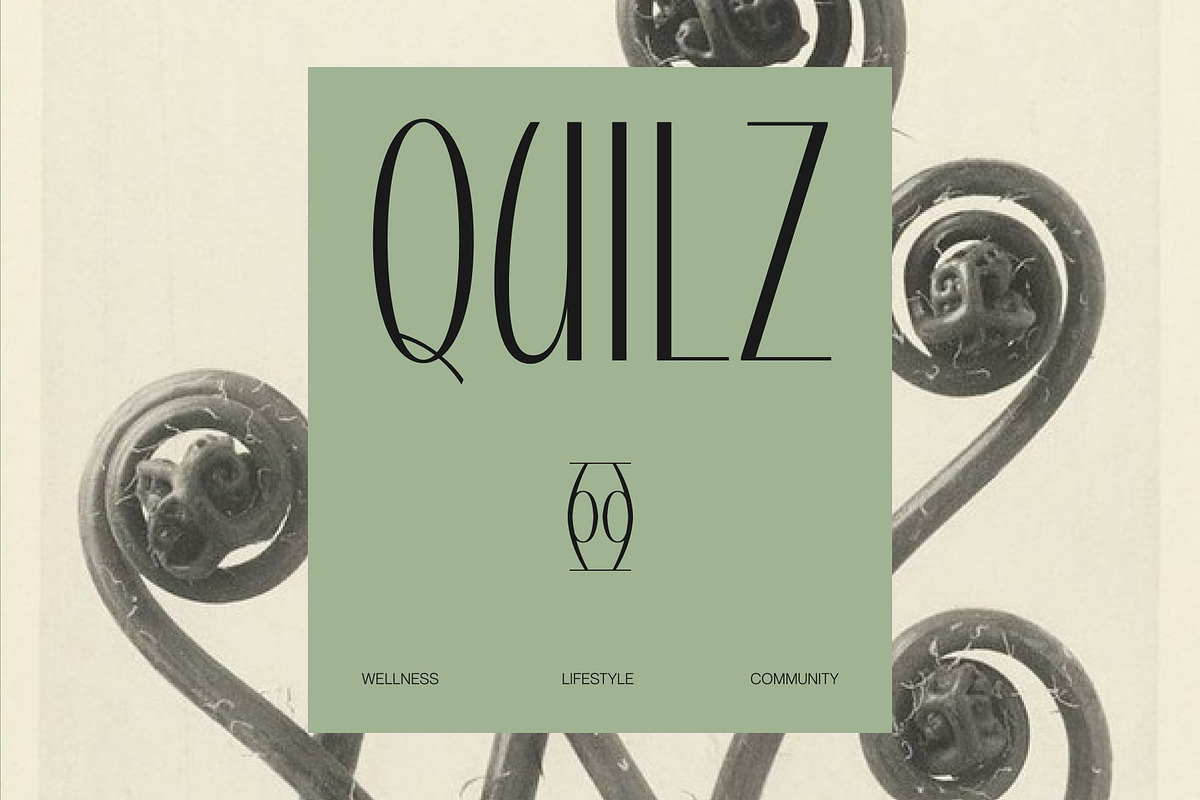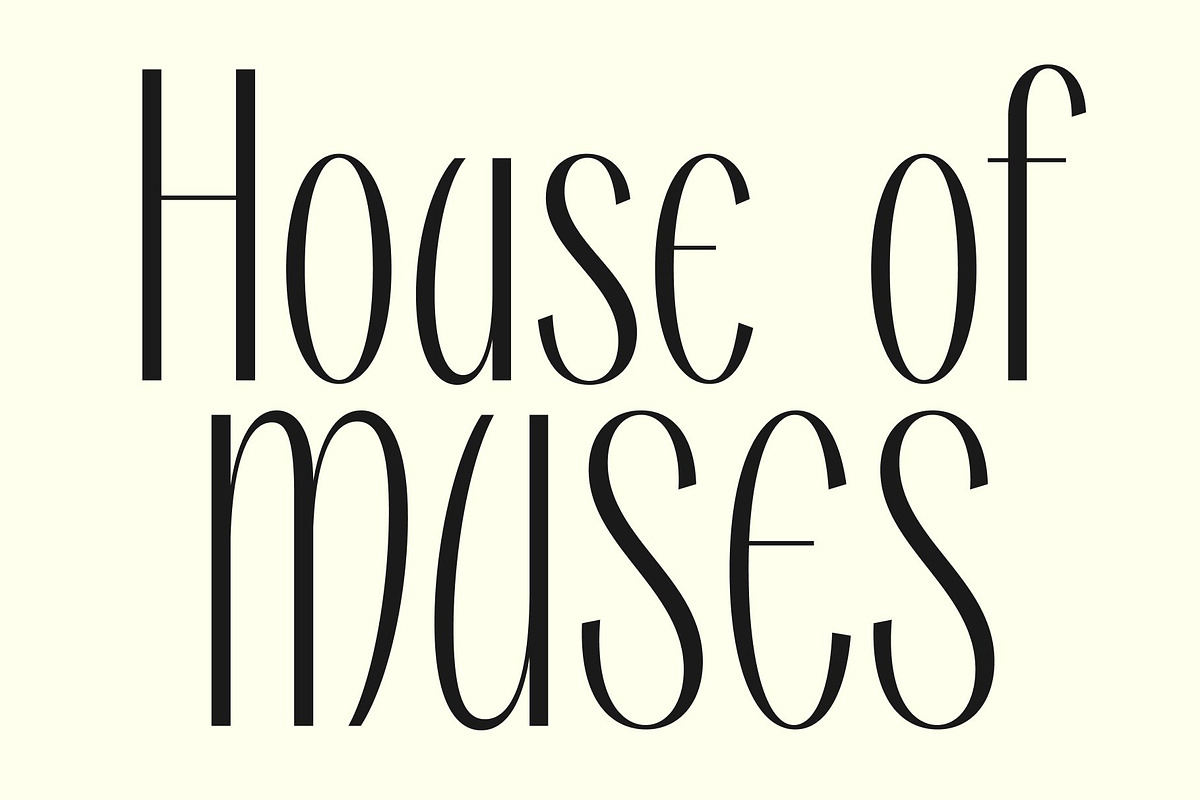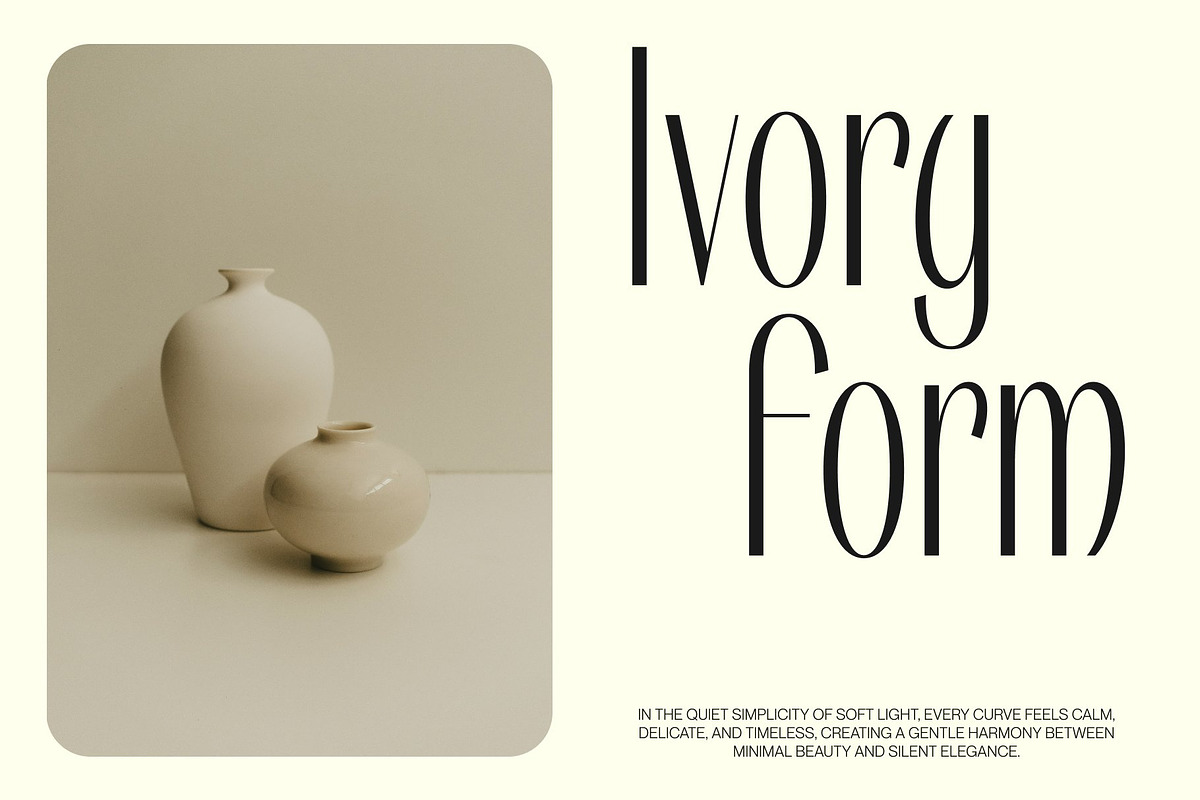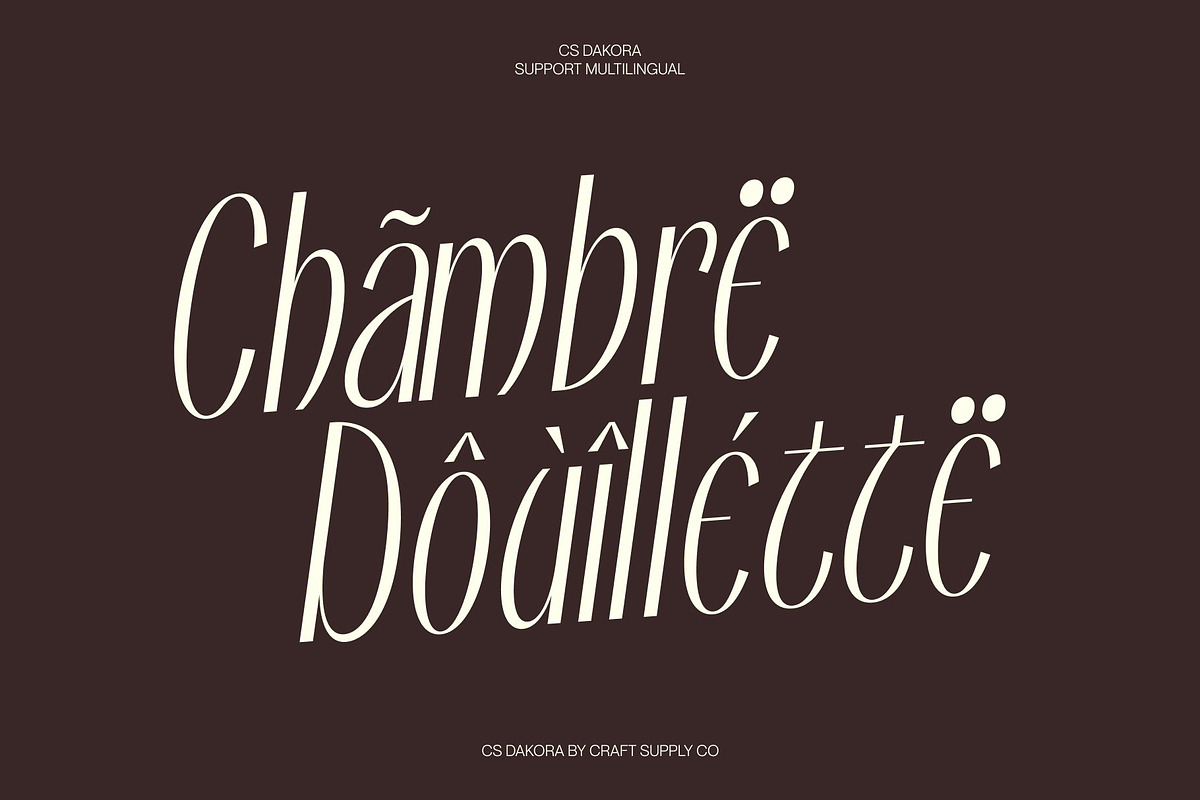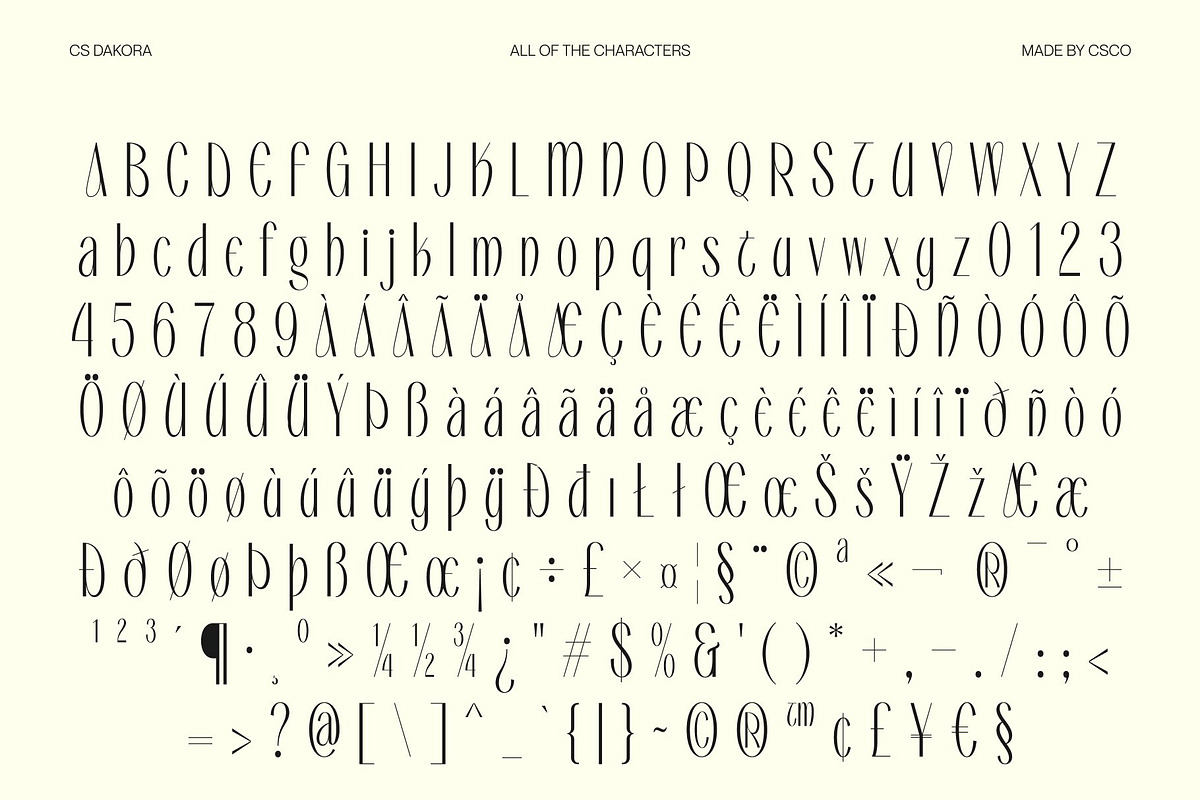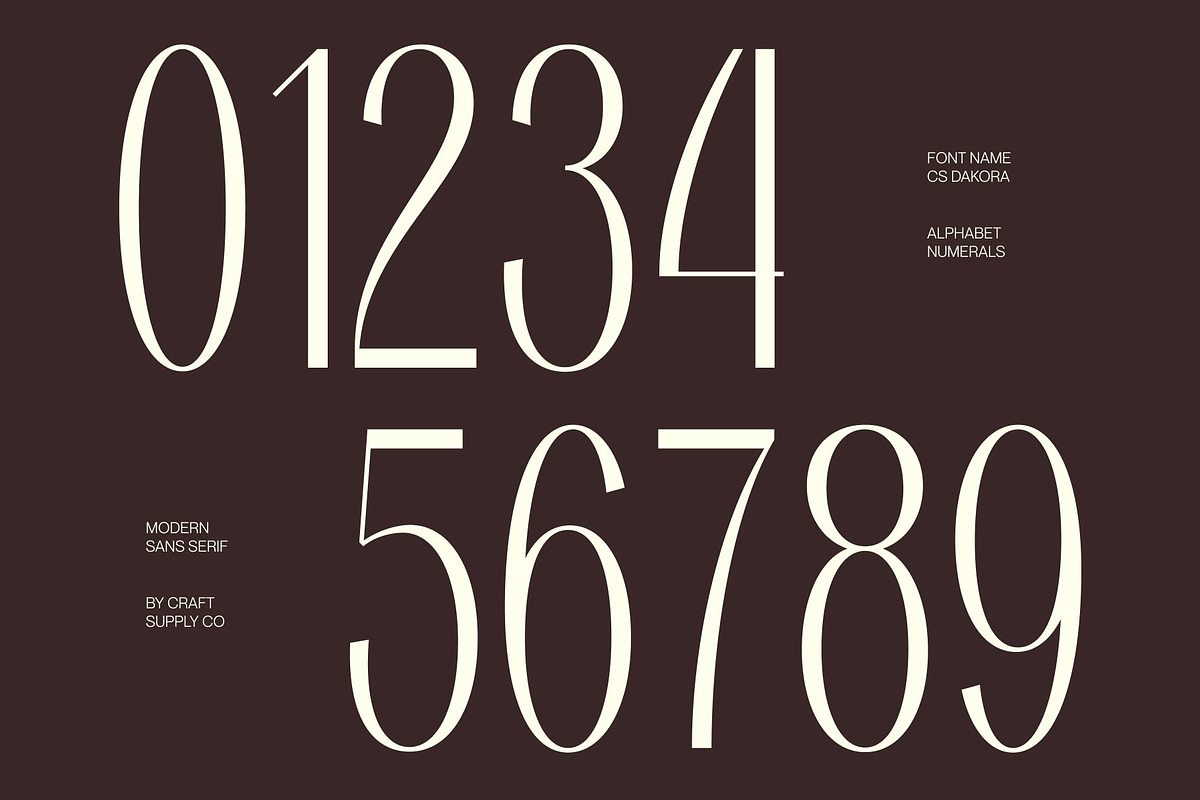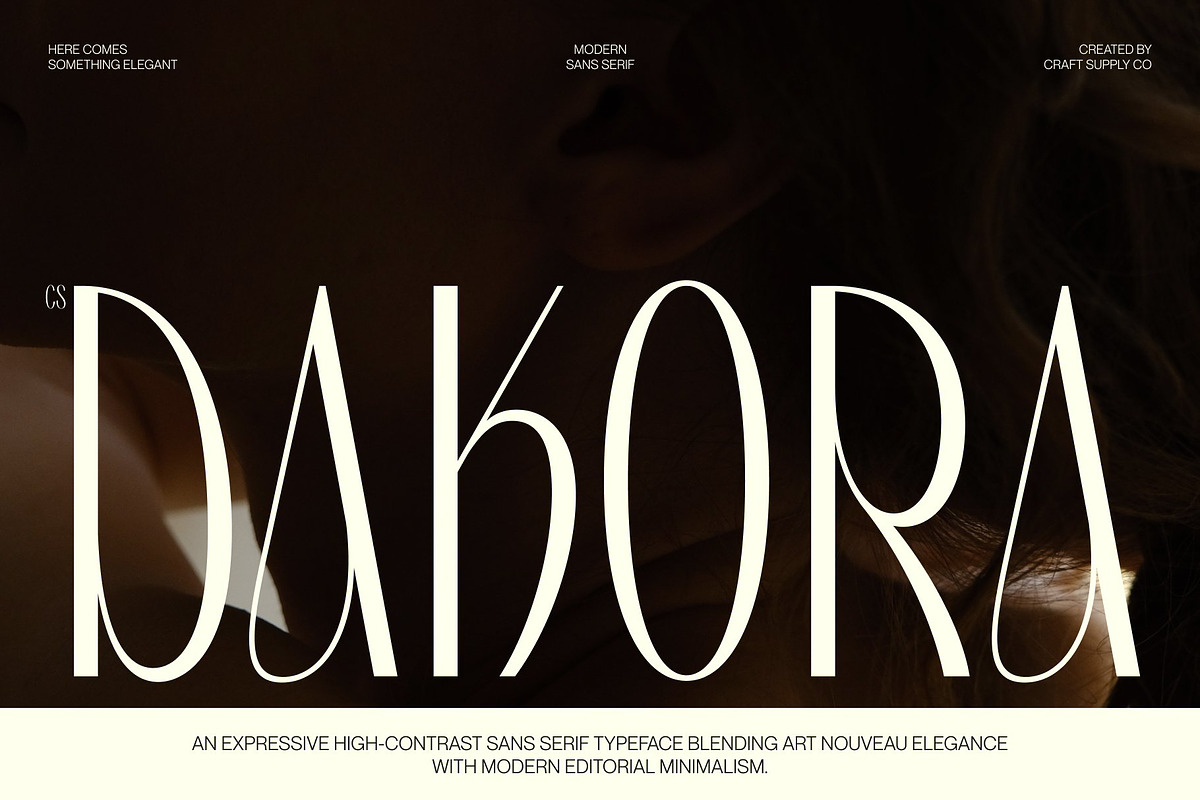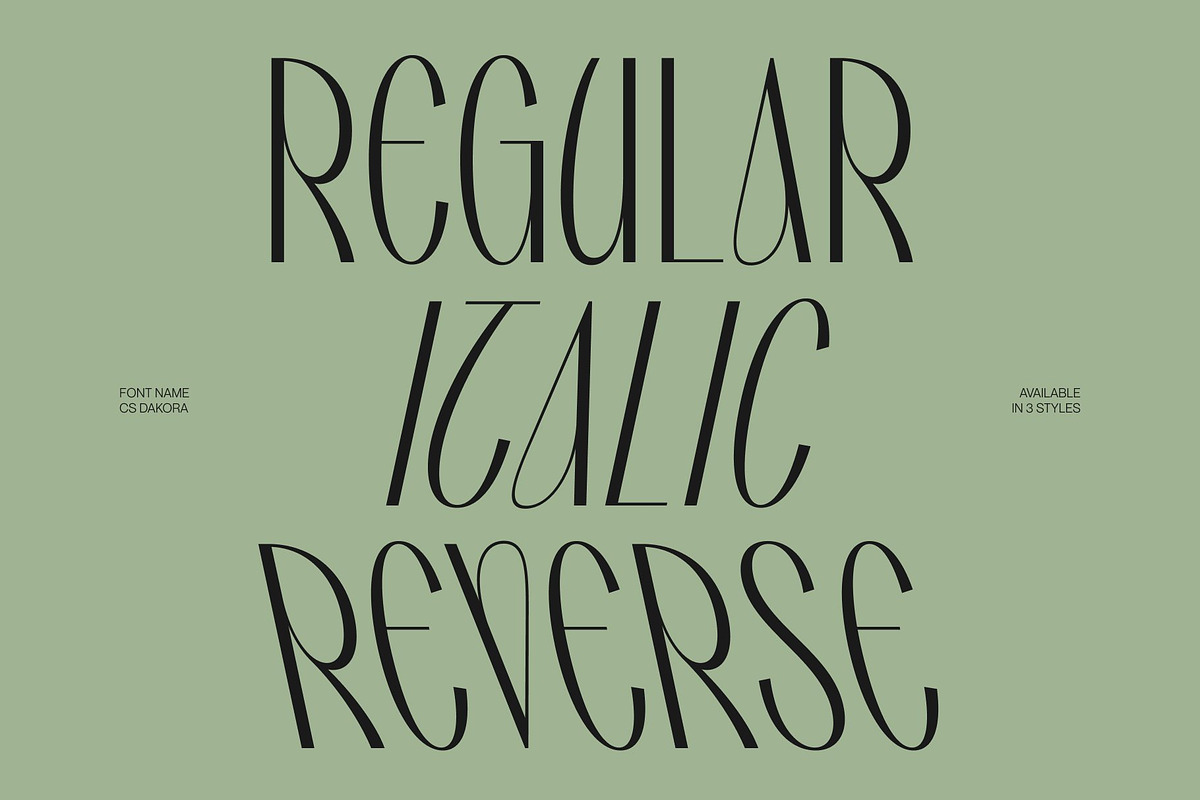
CS Dakora – Elegant Sans Serif
CS Dakora – Modern Sans Serif Font: Where Art Nouveau Elegance Meets Editorial Minimalism
Expressive Contrast with Refined Elegance This is a modern sans serif font that blends the flowing elegance of Art Nouveau with the clean sophistication of contemporary editorial typography. Its expressive high-contrast details, graceful curves, and refined proportions create a distinctive visual identity that feels artistic, luxurious, and effortlessly modern.
Art Nouveau Influence with Contemporary Precision This font brings those expressive qualities into a minimalist modern framework. Its clean sans serif construction keeps the design polished and versatile, while subtle contrasts and graceful details add personality and visual depth.
Minimalist Structure with Sophisticated Character This font balances simplicity and artistic expression through its carefully crafted letterforms. The combination of streamlined geometry, elegant curves, and expressive contrast creates a sophisticated typographic rhythm that works beautifully in both bold display settings and refined editorial compositions.
Perfect for Fashion, Branding, and Editorial Design Perfect for fashion branding, magazine headlines, editorial layouts, luxury logos, beauty packaging, posters, invitations, lifestyle publications, advertising campaigns, social media graphics, boutique identities, and contemporary visual presentations. Its fusion of Art Nouveau elegance, editorial minimalism, and expressive high contrast makes it an excellent choice for designs that require sophistication, creativity, and a distinctive modern personality.